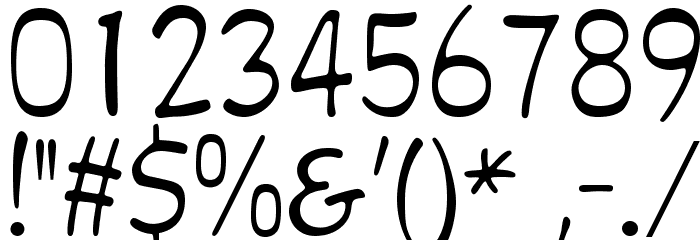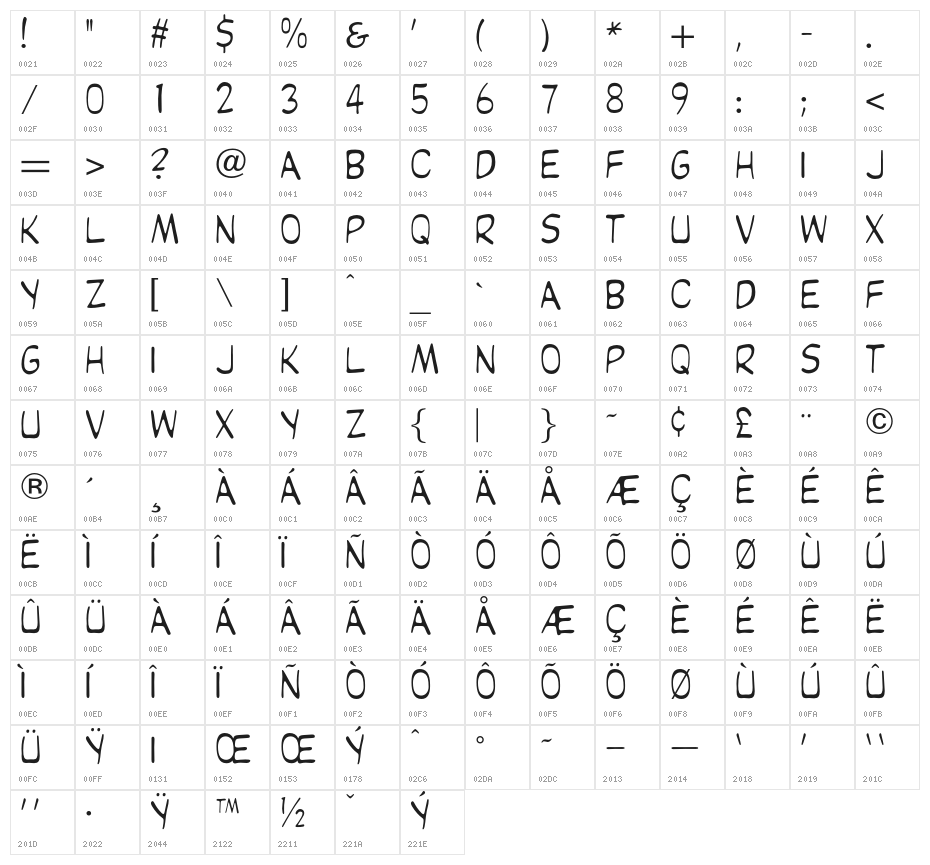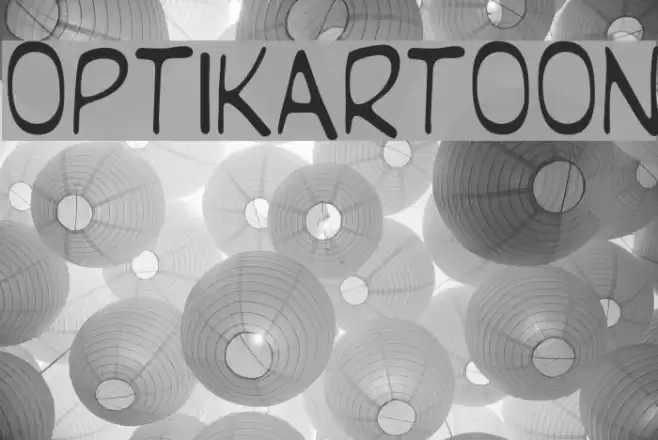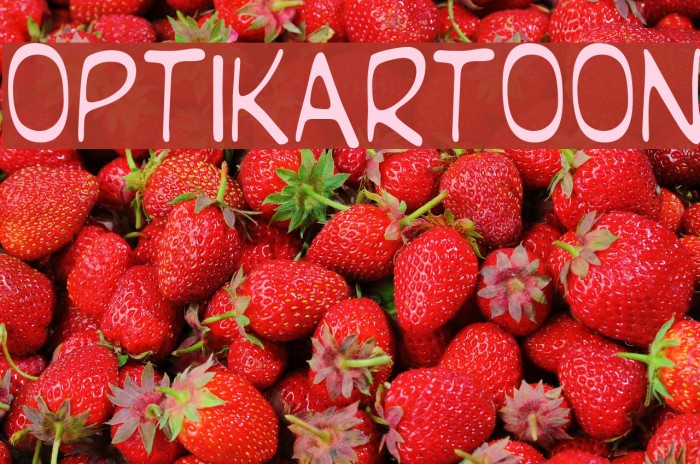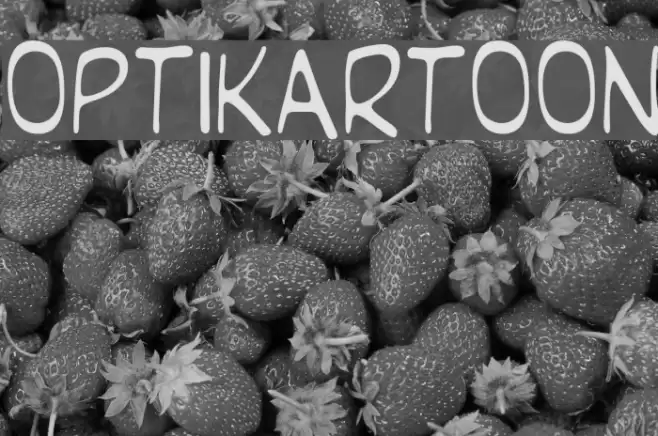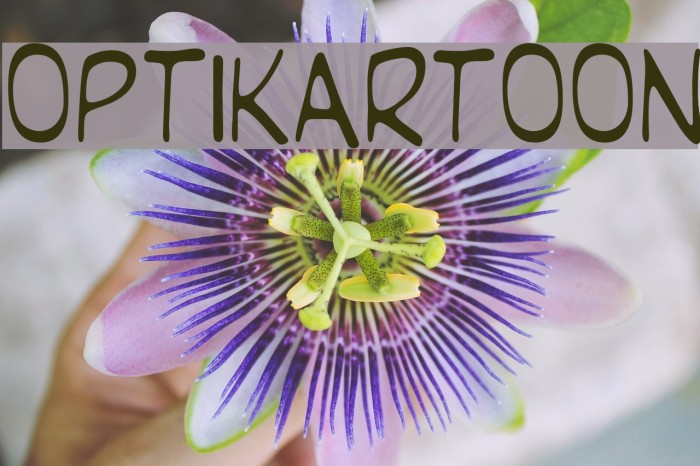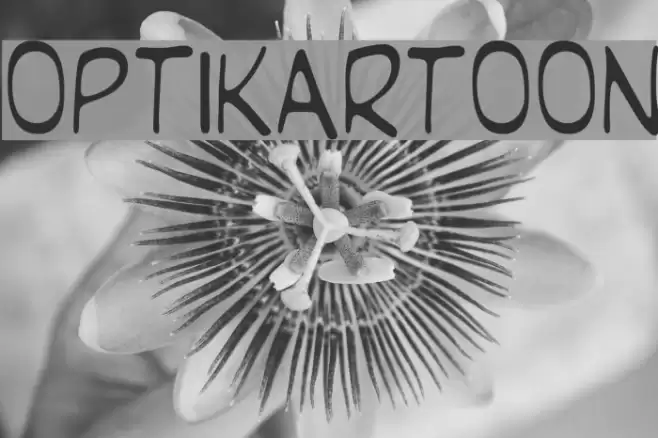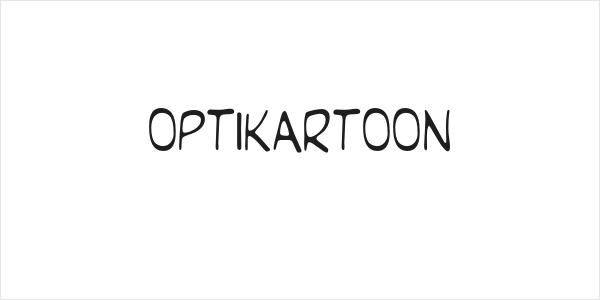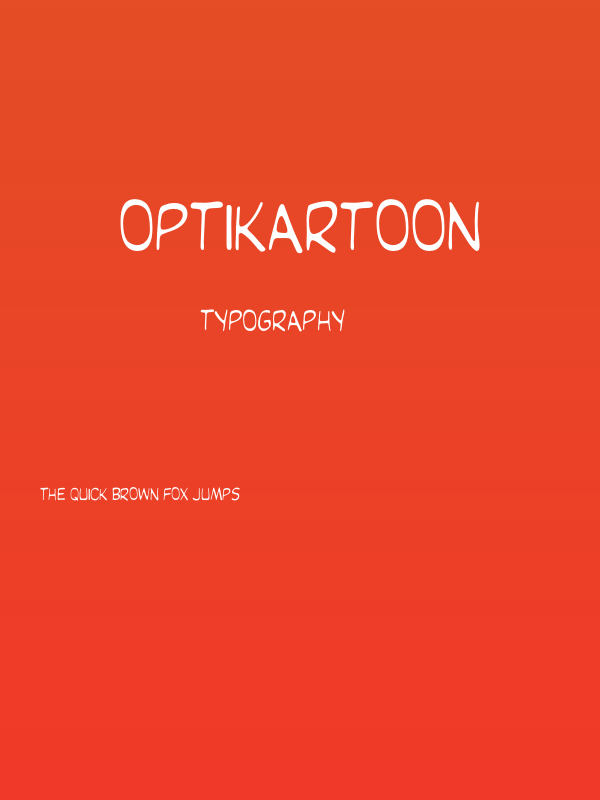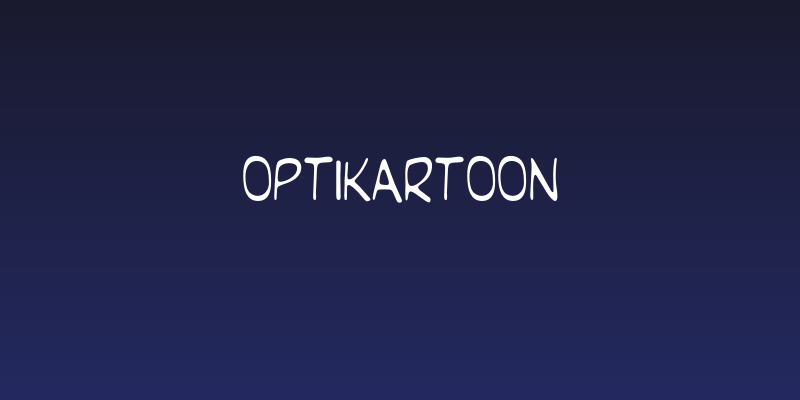
OPTIKartoon Font
OPTIKartoon Description
This playful and whimsical font features a hand-drawn, cartoon-like style with rounded edges and a casual appearance. The characters are slightly irregular, giving them a lively and dynamic feel. The uppercase and lowercase letters maintain a consistent style, with a friendly and approachable look. Numbers and special characters are designed to match the overall aesthetic, making them suitable for creative and informal projects. The font's unique personality makes it ideal for children's books, comic strips, and playful branding.
| Proposed Projects | Children's books, comic strips, playful branding, greeting cards, and informal invitations. |